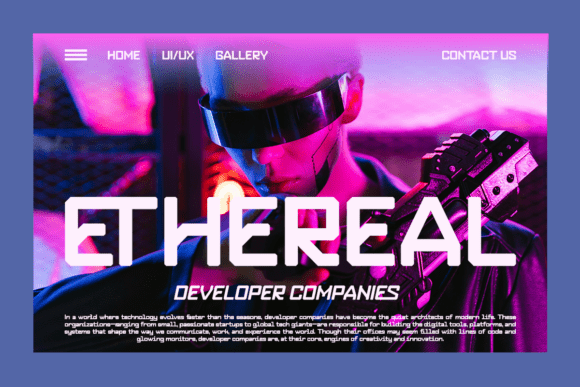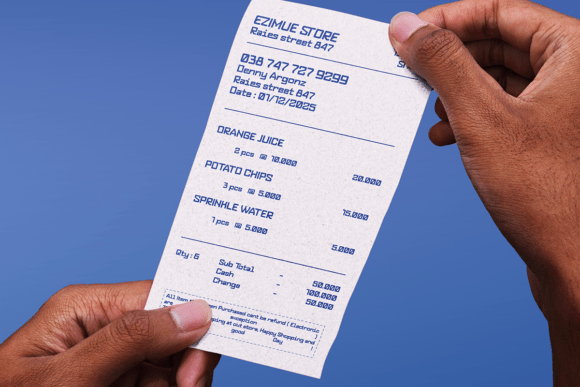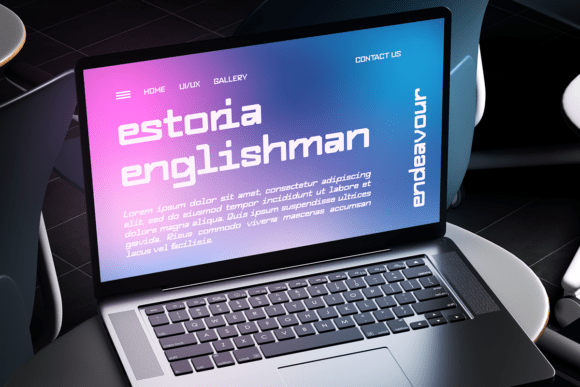
Introduction to Ersiqust Font
As a designer, there’s nothing quite like the thrill of landing the perfect typeface for your project. It’s the moment when all the pieces fall into place, and your creative vision starts to take shape. For those of us who live and breathe design, finding that elusive font can be a game-changer. And, if you’re anything like us, you’re always on the lookout for that one special font that elevates your work from good to great.
Enter Ersiqust Font, a stunning monospace sans typeface that’s about to revolutionize the way you approach your next creative project. With its sleek, modern style and futuristic vibe, this versatile font is perfect for logos and branding, as well as sci-fi posters, product packaging, and invitation layouts.
Key Features of Ersiqust Font
- High-quality, professional design suitable for various creative projects, including graphic design, digital art, and typography.
- Features a transparent background, allowing for seamless integration into any design project, including those with complex layouts.
- Comes in a range of font sizes and resolutions, including 300 DPI and 600 DPI, to accommodate various design needs.
- Unique, stylish design that can add a touch of elegance and sophistication to any creative project, making it a valuable design resource.
- Easy to customize and edit, making it an ideal choice for designers who want to create unique and personalized designs.
Honest Review: Ersiqust Font
As a designer, I’m always on the lookout for high-quality design resources to elevate my creative projects. The Ersiqust Font has caught my attention, and I’m excited to share my thoughts on it.
- ✨ Clean and modern aesthetic: The Ersiqust Font has a sleek, modern look that’s perfect for contemporary design projects.
- ✨ Versatile: The font is available in various weights and styles, making it suitable for a wide range of creative projects.
- ⚠️ Limited language support: The Ersiqust Font only supports a limited range of languages, which may be a drawback for designers working on international projects.
- ⚠️ No transparent background option: The font does not have a transparent background option, which may limit its use in certain design scenarios.
Overall, I’m impressed with the Ersiqust Font, and I think it’s a great addition to any designer’s toolkit. Its clean design, versatility, and free download make it a great resource for creative projects. However, its limitations, such as limited language support and no transparent background option, should be taken into consideration.
Ersiqust Font is ideal for use in logos, branding materials, and marketing materials. Its high-quality design and transparent background make it perfect for creating eye-catching designs. You can also use it in presentations, reports, and documents to add a professional touch.
Tips for Getting the Most Out of Ersiqust Font
To get the most out of Ersiqust Font, experiment with different font sizes, colors, and styles. You can also pair it with other high-quality design resources to create a unique and visually appealing design. Remember to use the font in a way that complements your creative project and enhances its overall aesthetic.
Can I customize the Ersiqust Font to suit my design needs?
Yes, the Ersiqust Font is highly customizable, allowing you to adjust its size, color, and style to fit your design requirements. Additionally, the font’s transparent background feature makes it easy to layer and combine with other design elements.